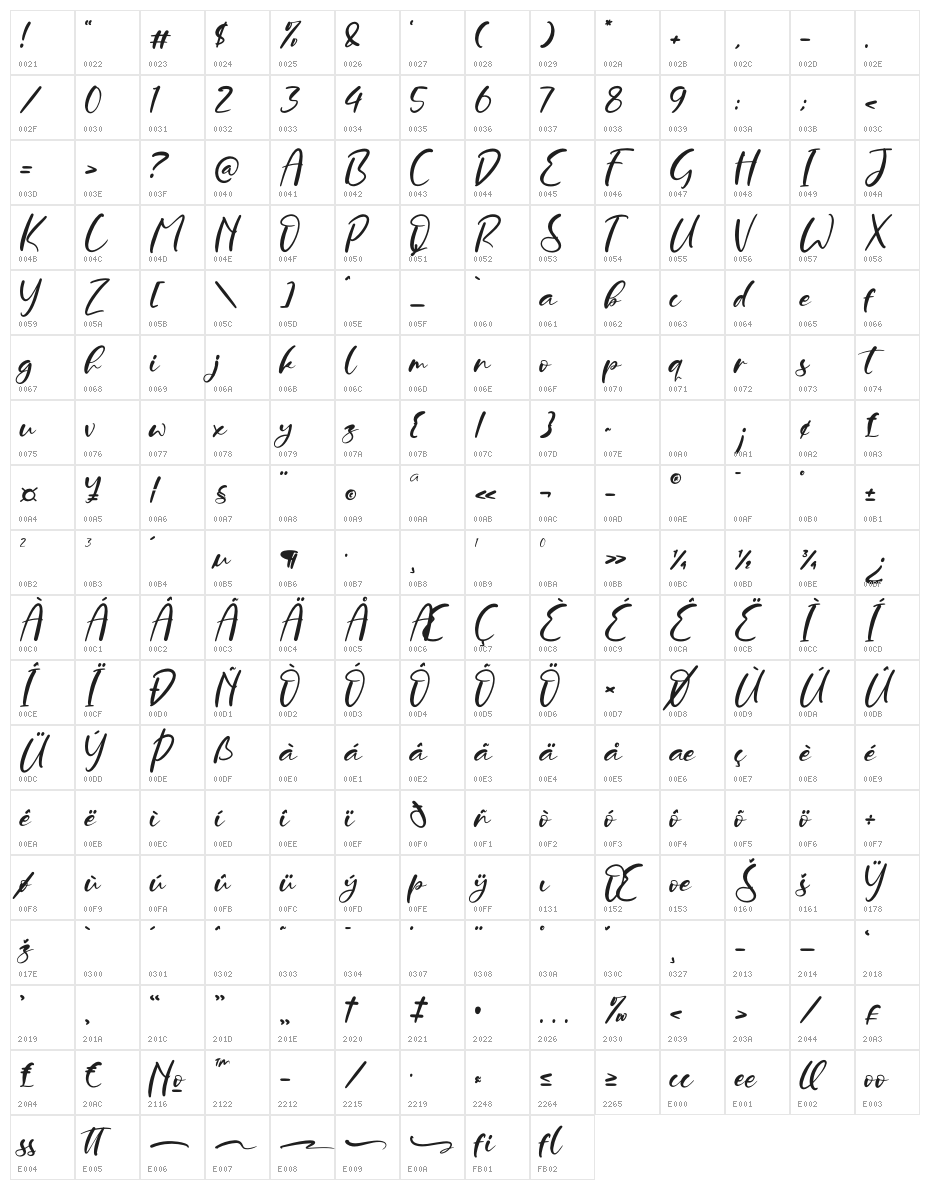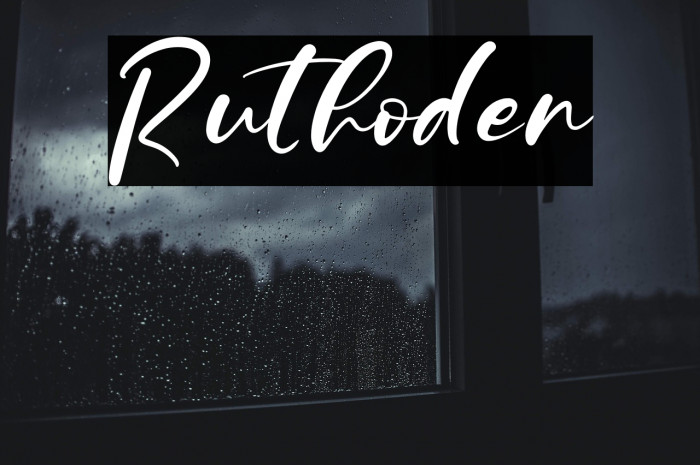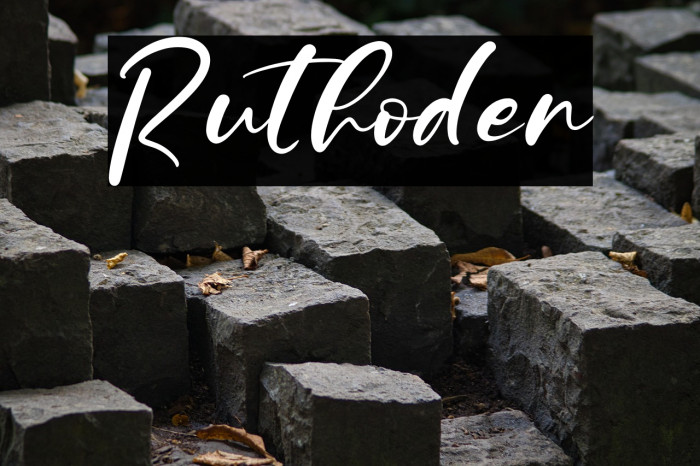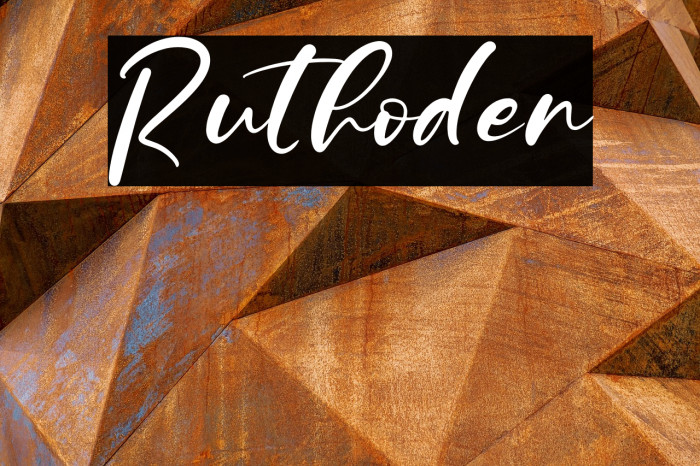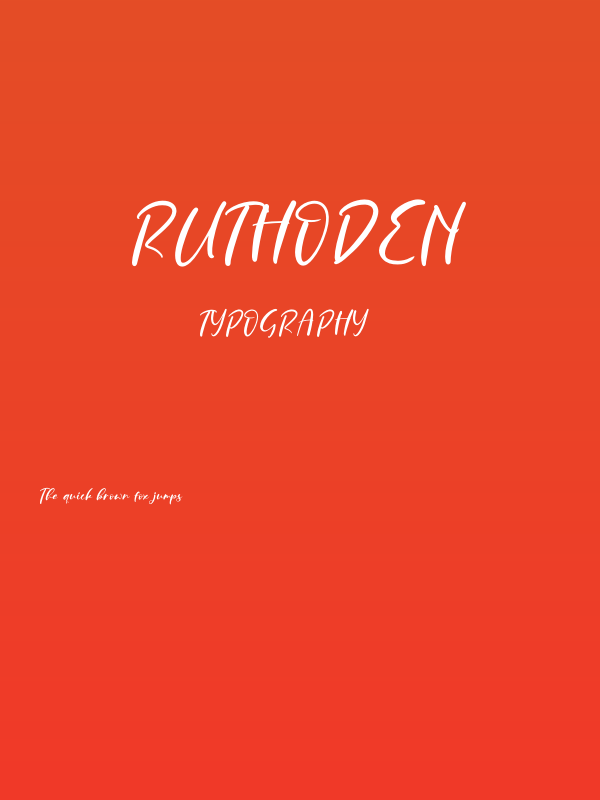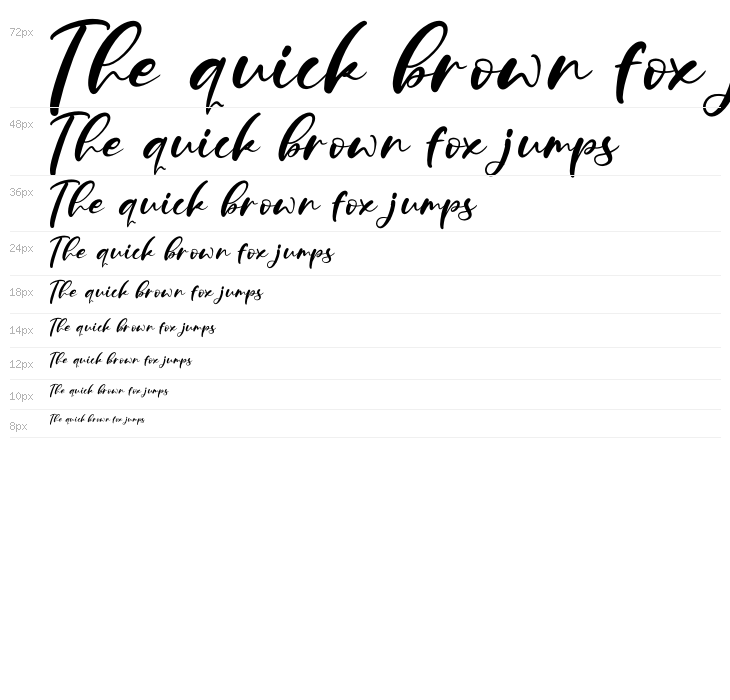
Ruthoden Font
Ruthoden Description
This font exudes a lively and dynamic energy, characterized by its fluid, cursive style. The letters are elegantly connected, creating a seamless flow that mimics natural handwriting. The strokes vary in thickness, adding a sense of movement and rhythm to the text. The uppercase letters are bold and slightly slanted, while the lowercase letters maintain a consistent, graceful curve. Numbers and special characters are crafted with the same attention to detail, ensuring a cohesive look across all elements. This font is perfect for projects that require a personal touch, such as invitations, greeting cards, or branding materials.
| Proposed Projects | Ideal for invitations, greeting cards, branding, and any project needing a personal, handwritten touch. |